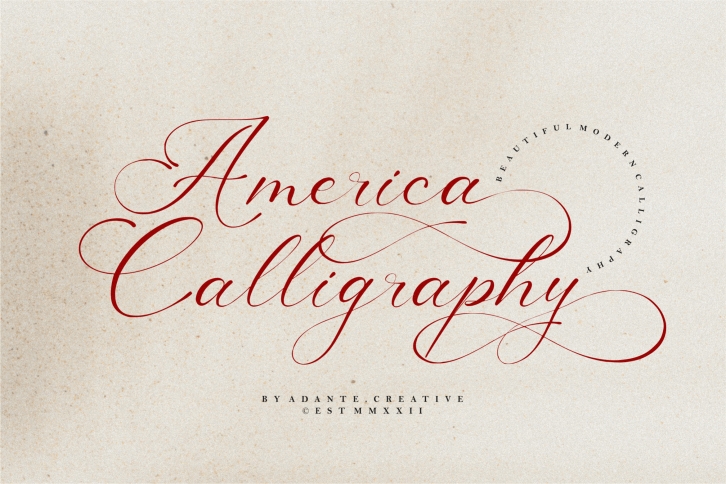
America Calligraphy is an enchanting handwritten font. This versatile script font has a wide spectrum of applications ranging from greeting cards to headlines and is guaranteed to add a romantic feel to your next project.